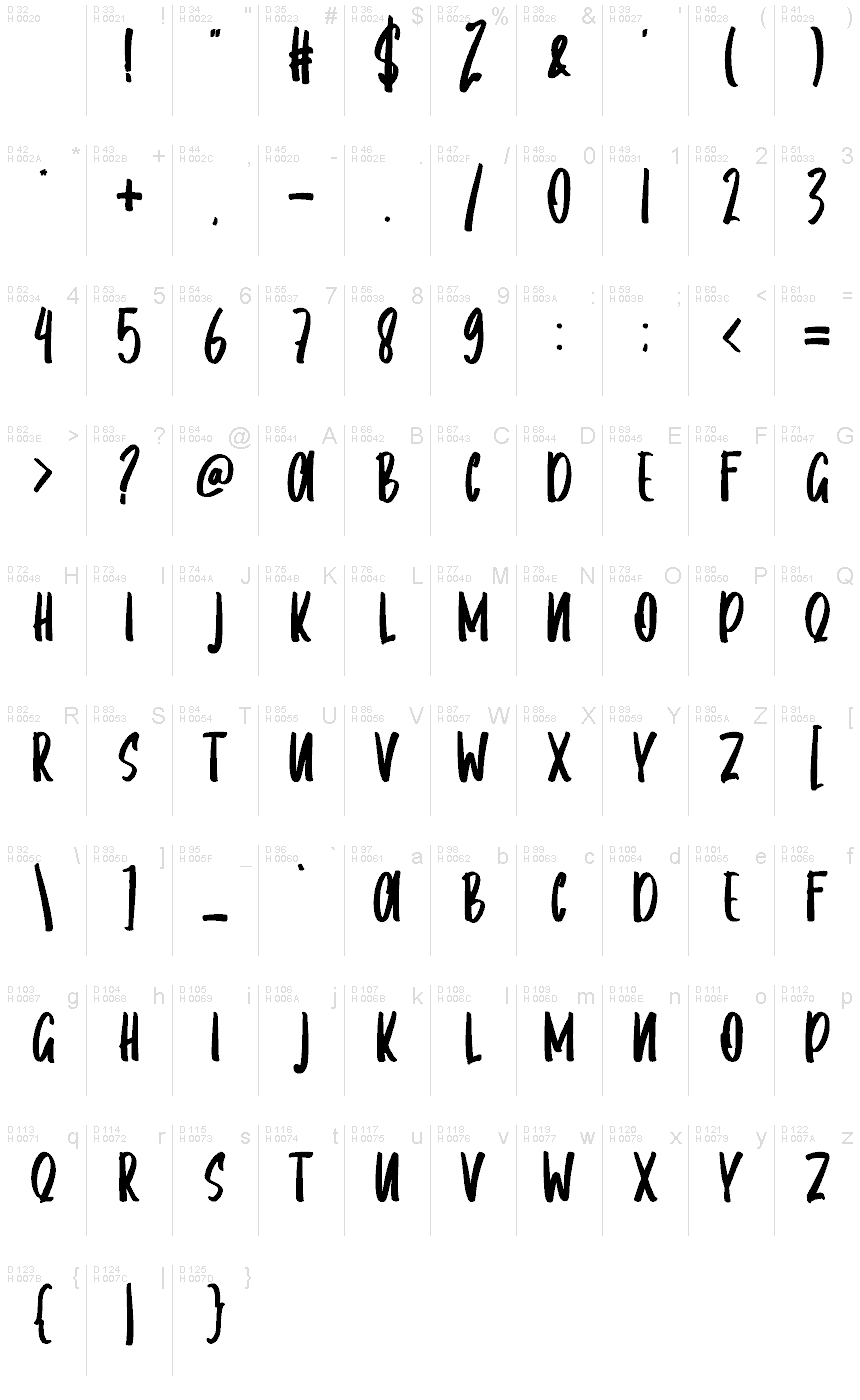
Byorka
Byorka font is a brush typeface designed by Skiiller Studio, a joyful condensed tool for casual and energetic designs. The hand-drawn appearance of letters adds an authentic and artistic twist to all texts. This expressive mood complements its retro style while the font itself banks on having modern applications that focus mainly on art aspects.
Use Byorka in branding, packaging, labels, book covers, displaying logos, magazine covers/titles, posters/prints hangers, t-shirts/other apparel items designs; any professional work will definitely benefit from this free brush font!